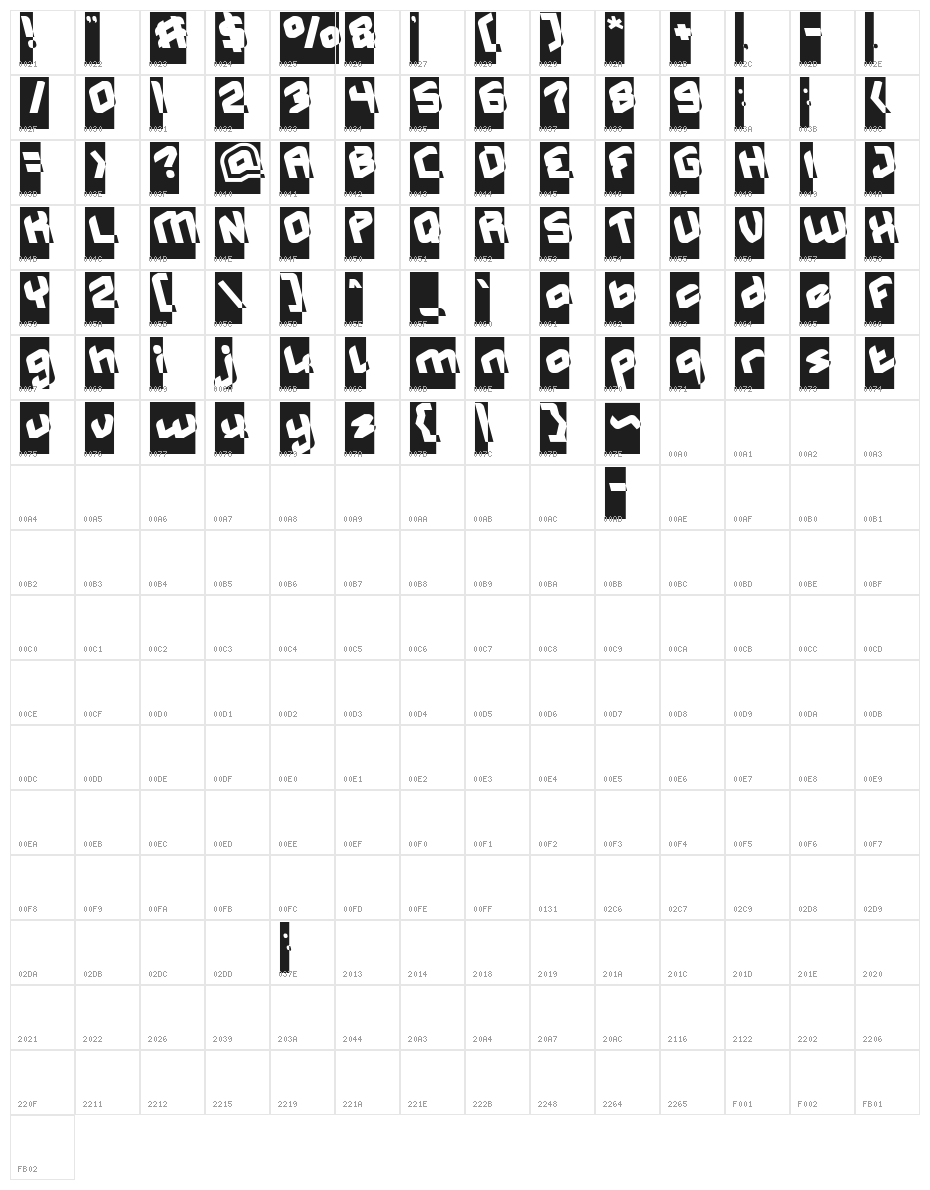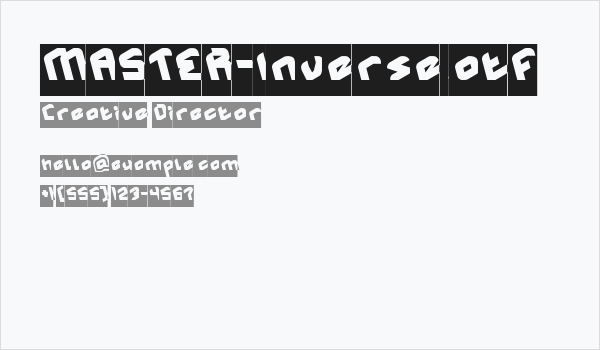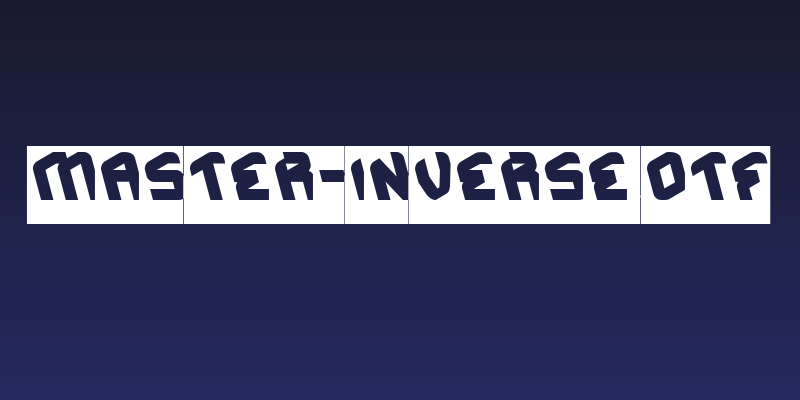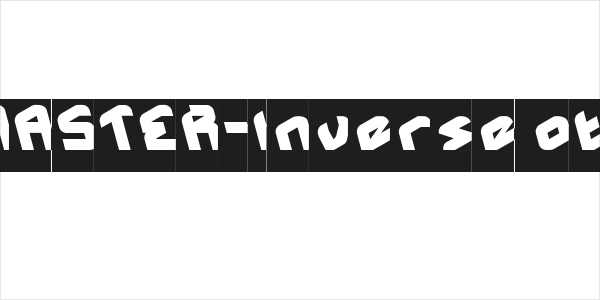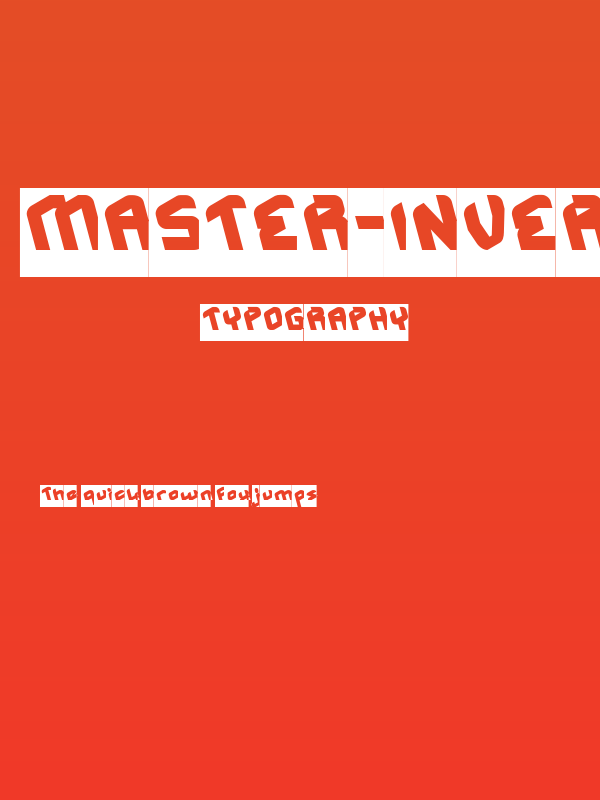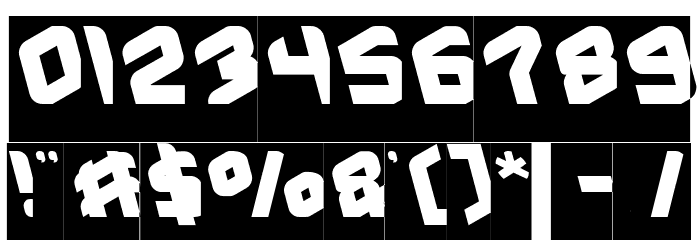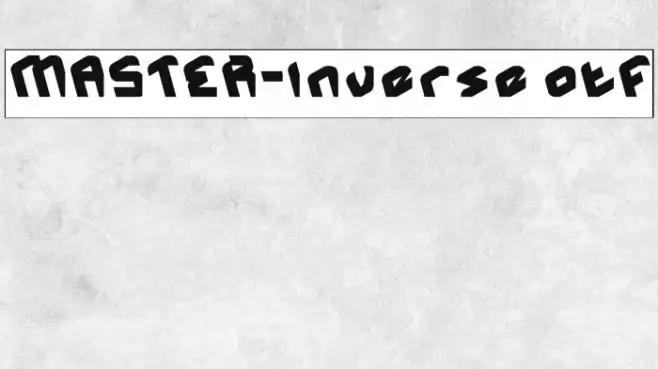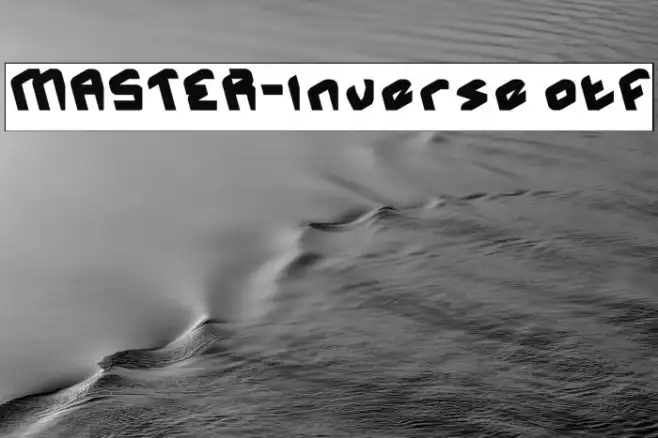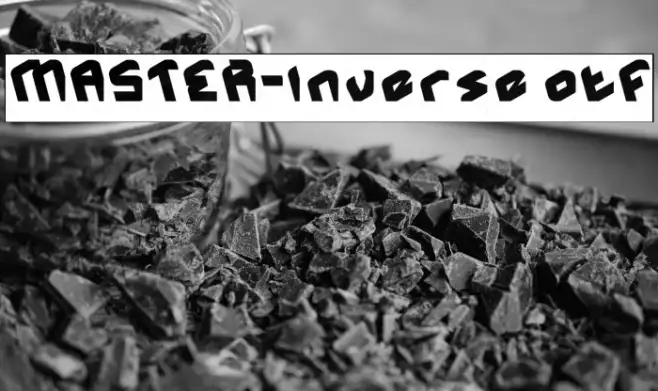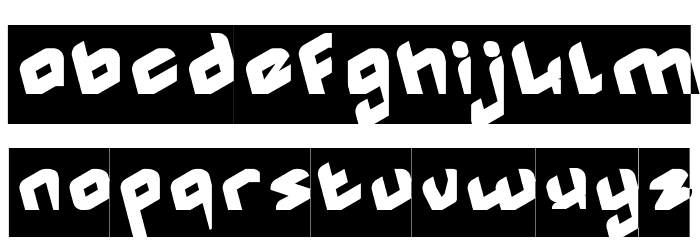
MASTER-Inverse.otf Font
MASTER-Inverse.otf Description
This font features a bold and dynamic style with angular, geometric shapes that create a sense of movement and energy. The characters are designed with sharp edges and a slightly slanted orientation, giving them a unique and modern appearance. The uppercase and lowercase letters maintain a consistent style, while the numerals and special characters complement the overall design. The font's boldness and distinctiveness make it stand out, making it suitable for attention-grabbing designs.
| Proposed Projects | Ideal for posters, branding, headlines, and any project requiring a bold and energetic typeface. |